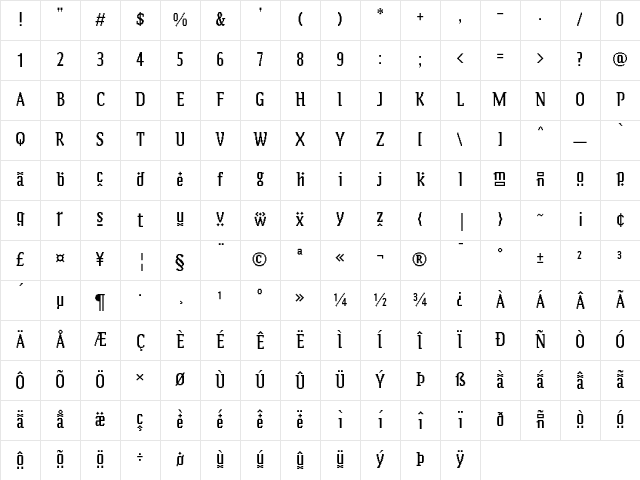
Zeitgeist MT Regular
Design Context for Zeitgeist MT
Zeitgeist MT is a composed and adaptable typeface that performs quietly and consistently across a wide range of design contexts.